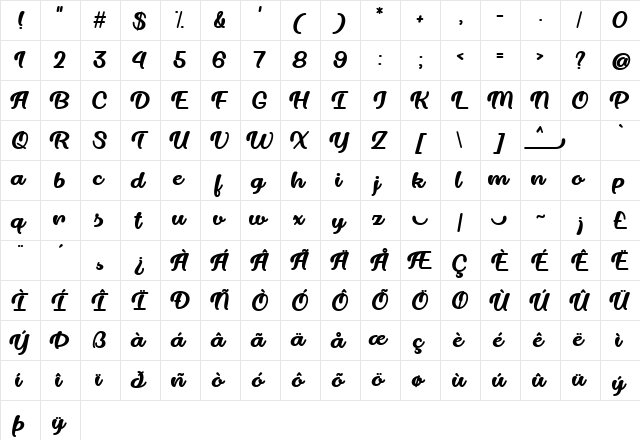
Dillon the Cat Regular
Design Context for Dillon the Cat Typeface
Dillon the Cat is a composed and adaptable typeface that performs quietly and consistently across a wide range of design contexts.